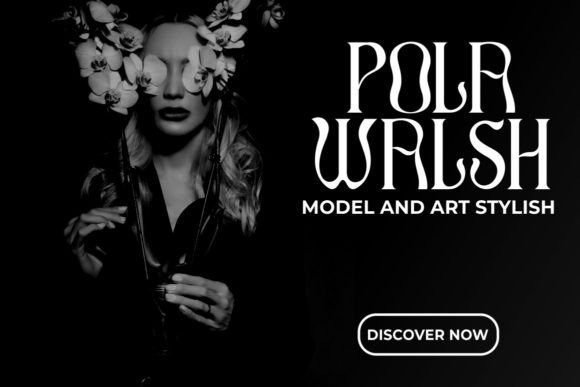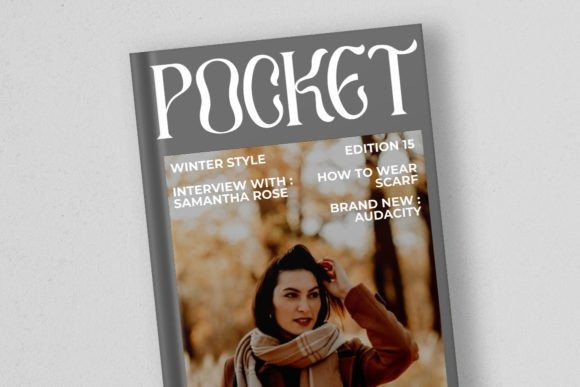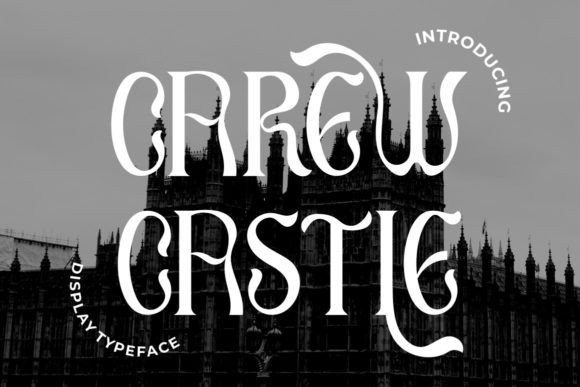
Carey Castle Typeface
Carey Castle Display Font is a stylish and luxurious display font perfect for your favorite projects. It can be used for books, magazine covers, social media posts, invitations, and so much more! So add this font to your creations and take your designs to the next level! Carey Castle is PUA encoded which means you can access all the glyphs and ligatures with ease!